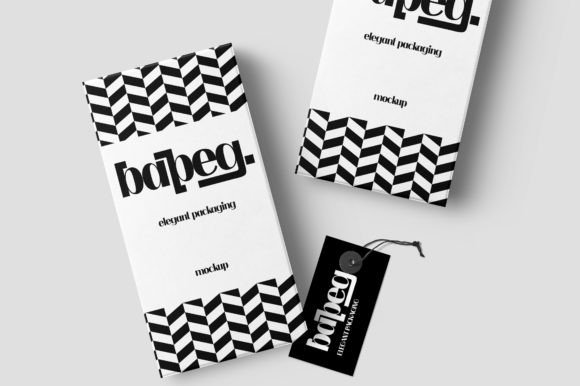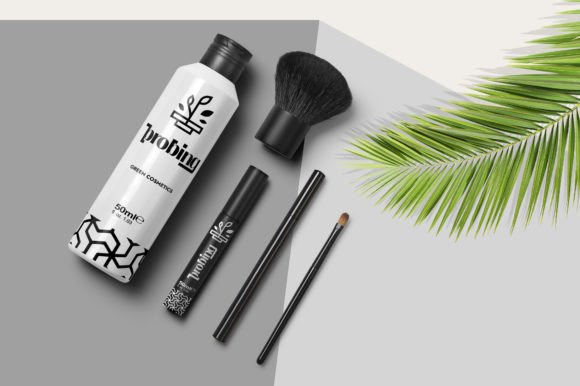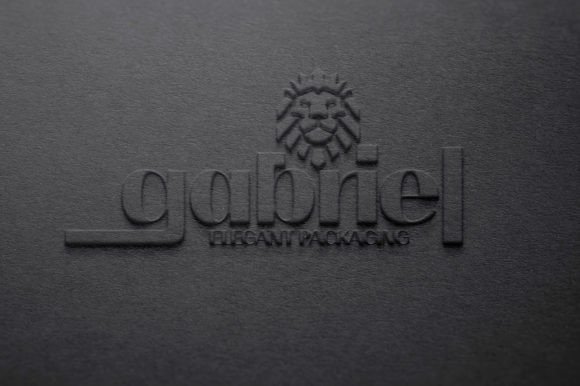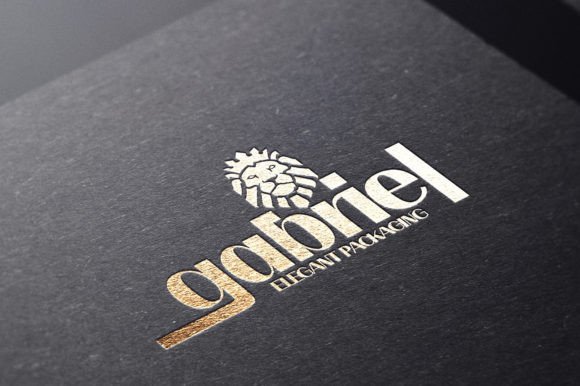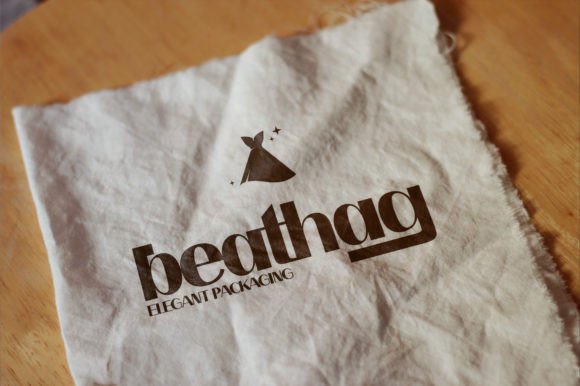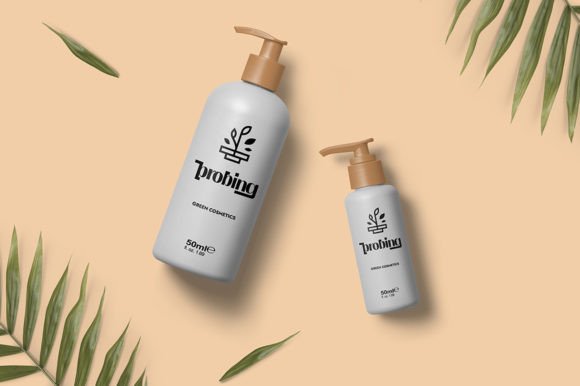
Bapeg Font: Elevate Your Designs with Geometric Elegance
In the world of typography, the right font can make all the difference in elevating your design from ordinary to extraordinary. For designers and crafters seeking a typeface that exudes elegance, versatility, and sophistication, Bapeg Font is an exceptional choice. This geometric, delicate, and high-contrast sans serif typeface has been gaining popularity for its unique aesthetic and adaptability, making it perfect for a wide range of design applications.
What is Bapeg Font?
Bapeg Font is a thoughtfully crafted typeface characterized by its geometric shapes, delicate lines, and high contrast. This distinctive combination of features lends Bapeg a refined and elegant appearance, setting it apart from more traditional sans serif fonts. Its geometric nature allows for a clean and modern look, while the high contrast adds a touch of sophistication and luxury.
Key Features of Bapeg Font
- Geometric Design: Bapeg’s geometric design ensures a clean, modern aesthetic that can add a sleek touch to any design project.
- Delicate and High-Contrast: The delicate lines and high contrast of Bapeg give it a unique elegance, making it suitable for designs that require a touch of sophistication.
- Sans Serif: As a sans serif typeface, Bapeg offers a contemporary look that can enhance a wide range of design applications, from digital media to print.
- Versatility: Bapeg’s versatility is one of its standout features. It can be used for everything from logo design and packaging to posters and branding materials.
Applications of Bapeg Font
Bapeg’s versatility makes it an excellent choice for various design projects. Here are some of the areas where Bapeg truly shines:
- Logo Design: The geometric and elegant nature of Bapeg makes it perfect for creating logos that need to convey sophistication and modernity.
- Packaging Design: For product packaging, Bapeg can add a touch of luxury and elegance, making products stand out on store shelves.
- Cosmetics and Perfumes: The high-end look of Bapeg is particularly well-suited for branding in the cosmetics and perfume industries, where luxury and elegance are key.
- Posters and Advertising: Bapeg’s readability and aesthetic appeal make it an excellent choice for posters and advertising materials, where grabbing attention is crucial.
Why Choose Bapeg Font?
Choosing Bapeg Font for your design projects comes with several advantages:
- Unique Aesthetic: Bapeg offers a unique blend of geometric simplicity and elegant high contrast, making it a standout choice for designers looking for something distinctive.
- Versatility: Its adaptability across different design applications means you can use Bapeg across a wide range of projects, making it a valuable addition to your font library.
- Enhanced Readability: Despite its delicate nature, Bapeg maintains excellent readability, ensuring that your message is conveyed clearly and effectively.
Bapeg Font is a remarkable typeface that brings a unique combination of geometric elegance and high contrast to the world of design. Its versatility, readability, and sophisticated aesthetic make it an ideal choice for designers and crafters looking to elevate their projects. Whether you’re designing logos, packaging, or promotional materials, Bapeg is sure to enhance your designs with its distinctive charm. By incorporating Bapeg into your typography arsenal, you’ll be equipped to create visually stunning and impactful designs that stand out in any medium.
Bapeg Font offers a fresh and elegant approach to typography, empowering designers and crafters to push the boundaries of their creativity. With its geometric precision, delicate touch, and high contrast, Bapeg is poised to become a favorite in the world of design.